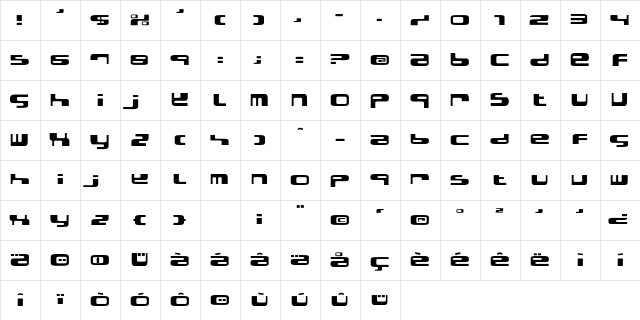
ElectroBazar Regular Free Font
ElectroBazar Regular
Design Context for ElectroBazar
ElectroBazar is a composed and adaptable typeface that performs quietly and consistently across a wide range of design contexts.